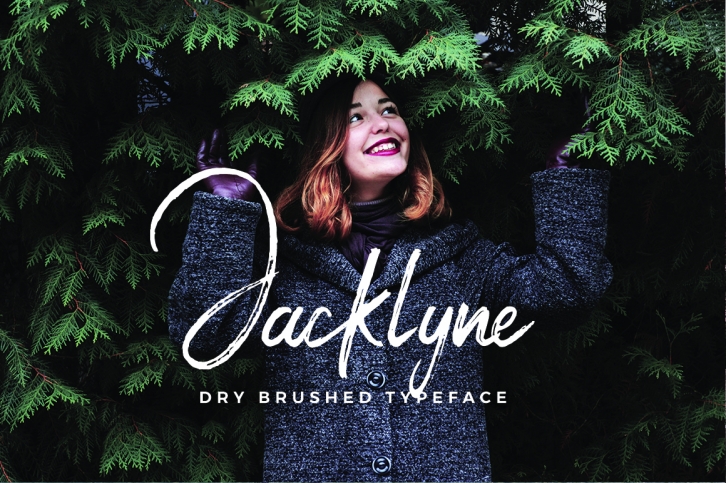
Jacklyne is a beautiful font that was designed by hustletter. It's a great choice for designers and creatives who need such a font. It was released on January 27, 2018 and the file size is 4.96 MB. Jacklyne may give a more youthful, expressive and casual look to your project. It is a very beautiful, refined, elegant, and high-quality font.